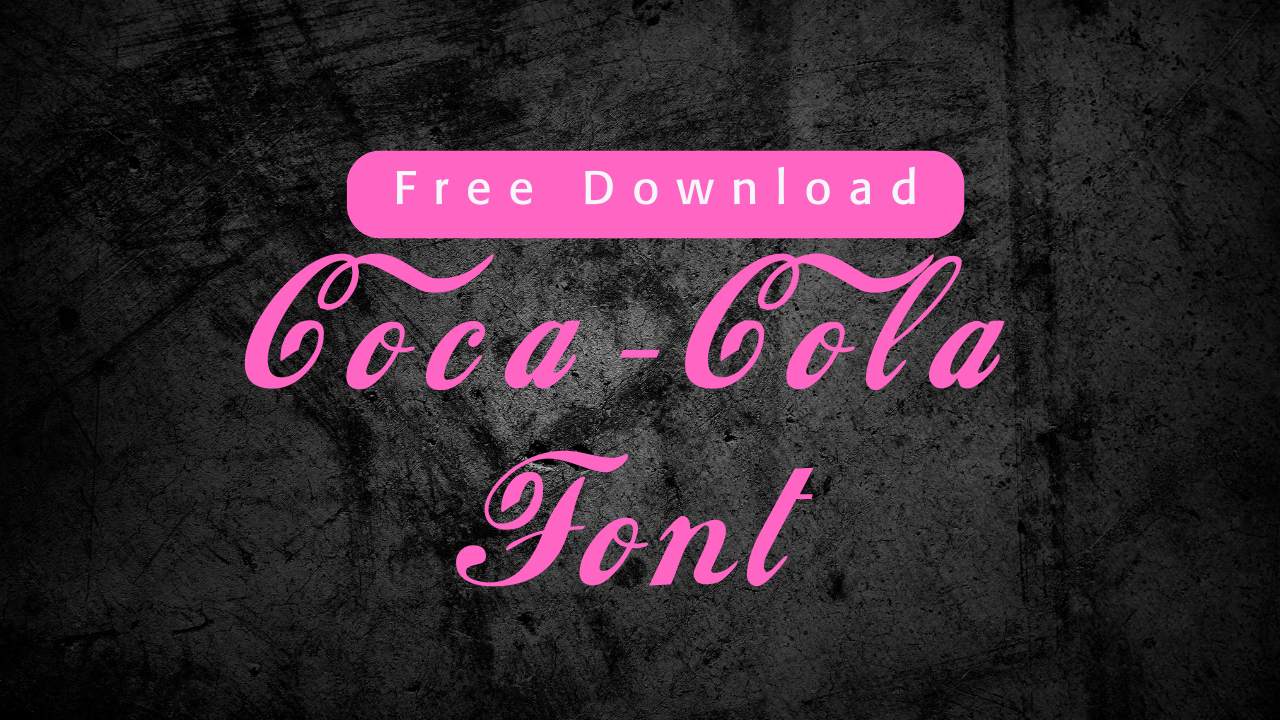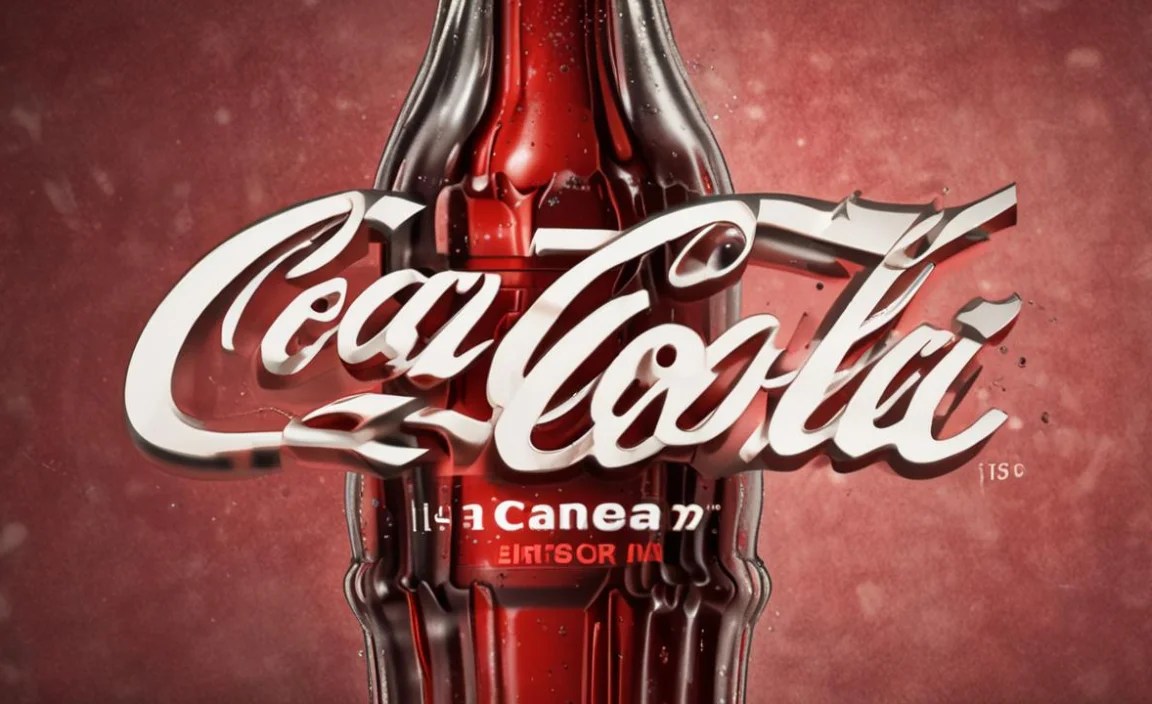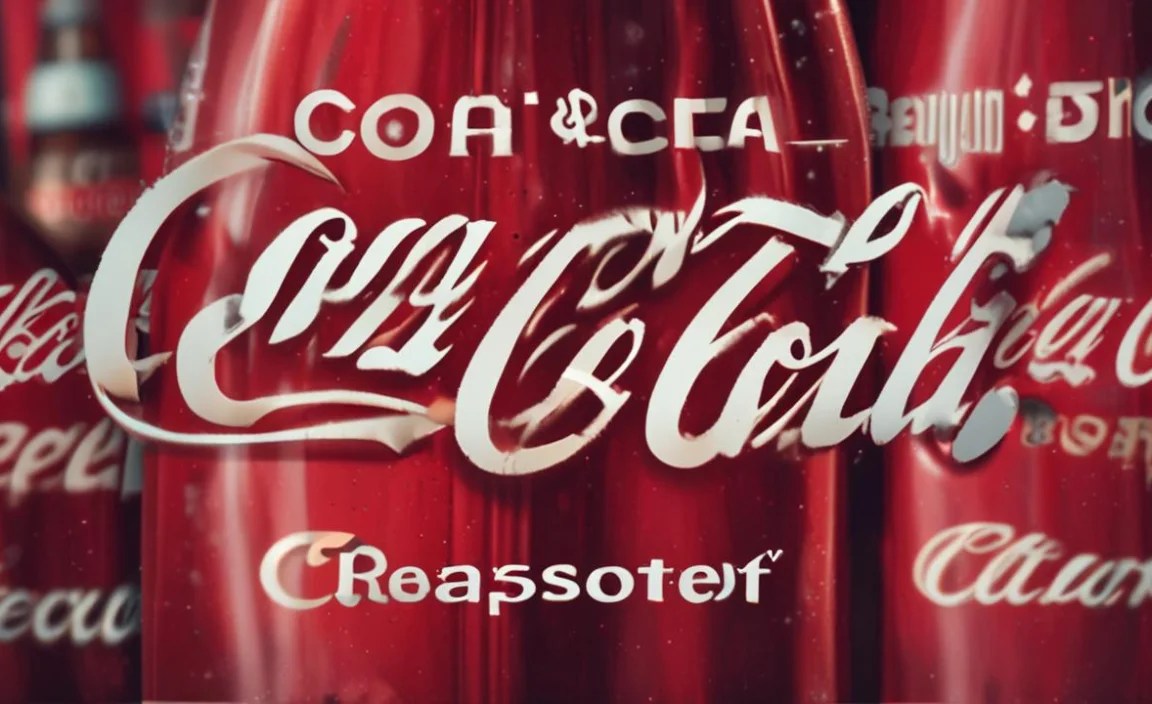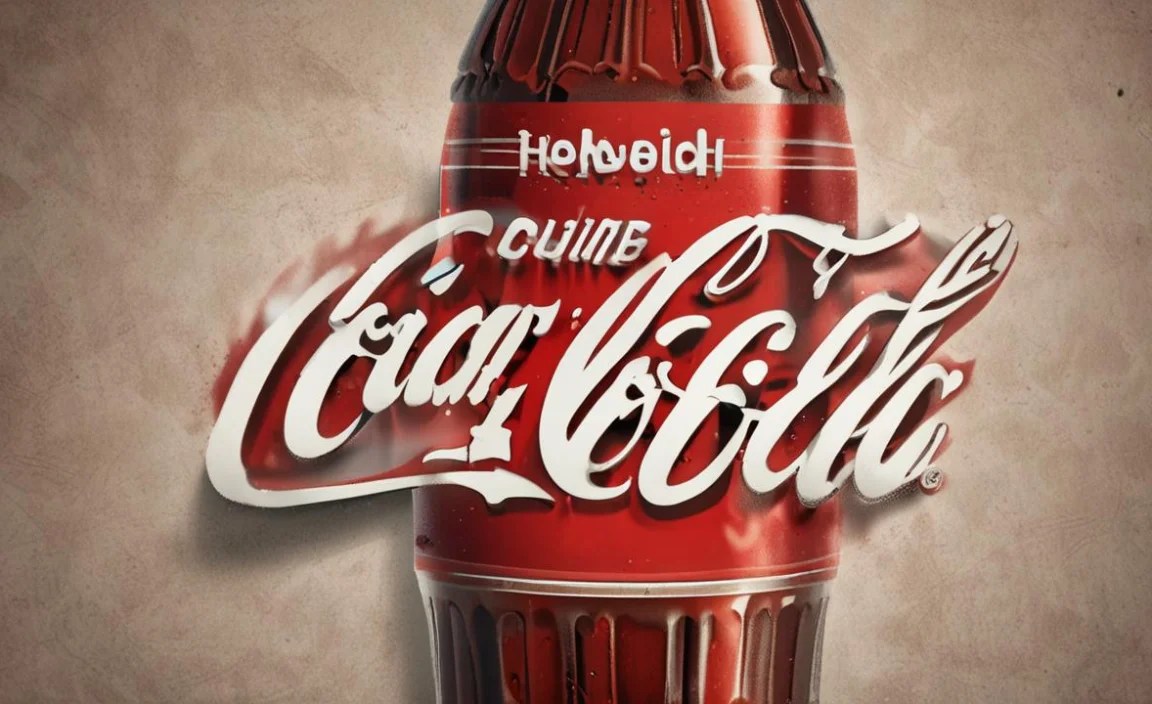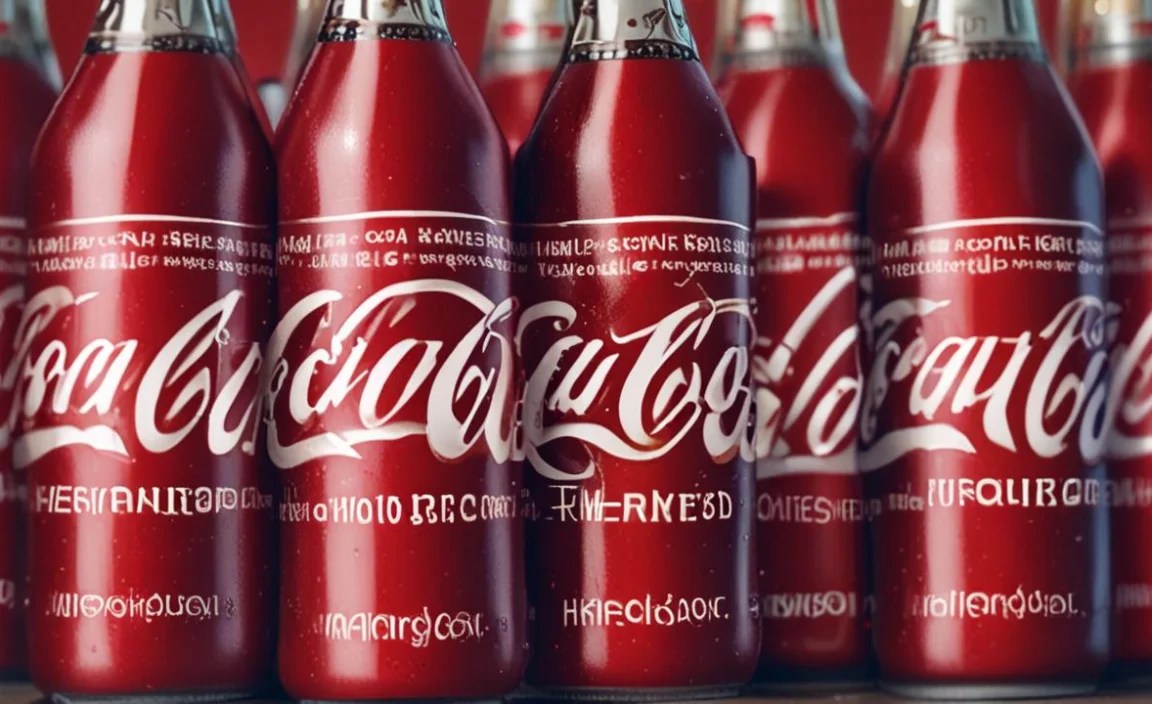
The Coca-Cola logo is one of the most recognizable symbols in the world, known for its distinctive and elegant script. The font used in the logo has become an iconic representation of the brand’s rich history and tradition.
Originally created by Frank Mason Robinson in 1885, the lettering style used is known as Spencerian script, which was popular in the United States from 1850 to 1925. This script has inspired various fonts that closely resemble the original Coca-Cola logo, allowing designers to capture the same timeless appeal in their projects.
Coca-Cola Font Information
| Name | Coca-Cola Font |
| Style | Spencerian Script |
| Designer | Tobias Frere-Jones |
| Type | Script |
Coca-Cola Font Family Includes
- Coca Cola ii
- Loki Cola
- Loki Cola Bold
- Coca Cola Italic
- Coca Cola Bold Italic
- Coca Cola Swash
Where Coca-Cola Font Is In Use
The Coca-Cola font is not just limited to the brand’s logo; it has also been used in various other design contexts. Its classic and fluid style makes it suitable for:
- Apparels
- Banners
- Branding
- Logos
- Packaging design
- Advertising campaigns
- Merchandise
1. How Many Fonts Are In The Coca-Cola family?
While the original logo uses a custom script, similar fonts like Coca Cola ii and Loki Cola offer a range of styles including regular, italic, and bold variations.
2. What Font Is The Coca-Cola Font?
The Coca-Cola font is a custom script typeface known as “Spencerian Script,” created specifically for the brand.
4. What Is The Coca-Cola Marketing Font?
Coca-Cola’s marketing materials primarily use the custom Spencerian Script and complementary sans-serif fonts for additional text.
5. What Font Is Similar To Coca-Cola?
Fonts similar to Coca-Cola include “Lobster” and “Spencerian,” which mimic the script style and flow of the original.
6. What Font Is Used For Diet Coke Cans?
Diet Coke uses a modified version of the Coca-Cola font with a clean, modern sans-serif style for its branding.